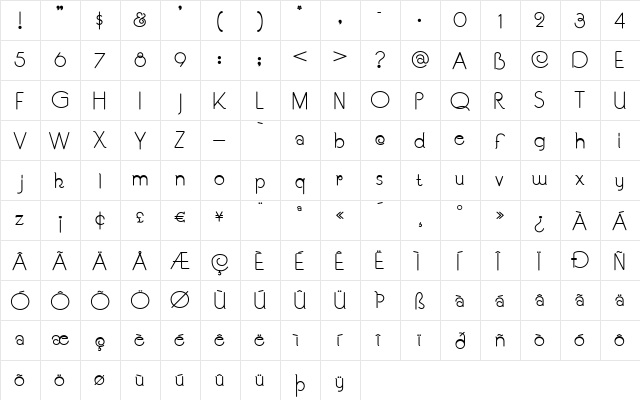
SouciSans Regular
Design Context for SouciSans Typeface
SouciSans offers clean, dependable letterforms without strong stylistic allegiance, making it a practical choice for designers who need flexibility.